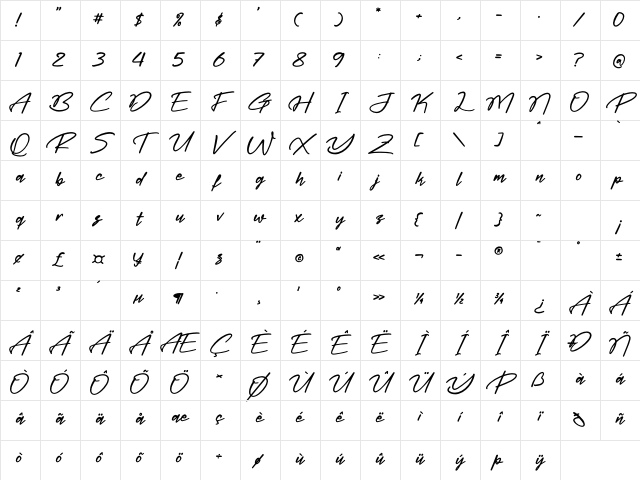
Hursttom Randolph Regular Free Font
Hursttom Randolph Regular
Foundry: Glorytype
Designer: Glorytype
Design Context for Hursttom Randolph
Hursttom Randolph is a composed and adaptable typeface that performs quietly and consistently across a wide range of design contexts.